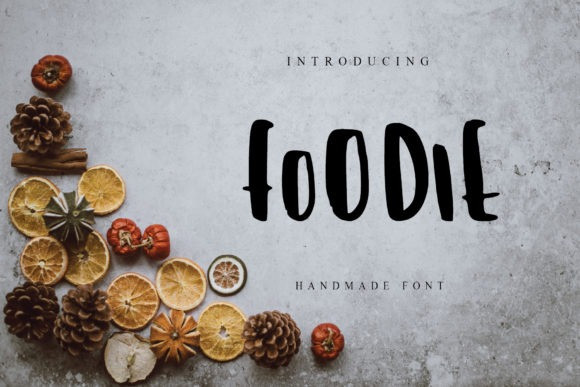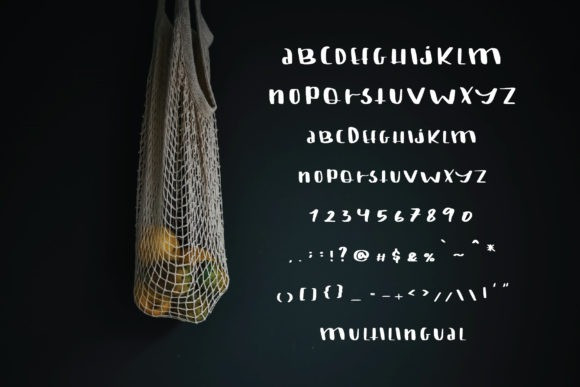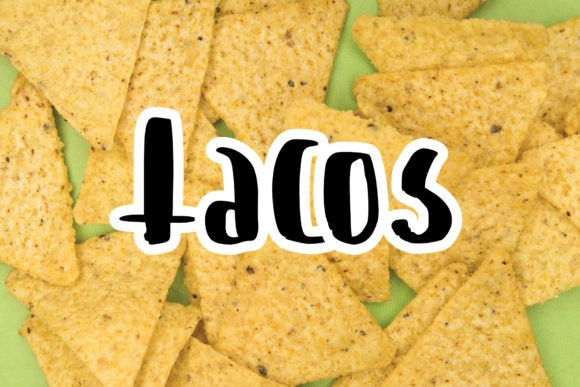
Foodie Display Font
Foodie is a cute and quirky display font. It will add an incredibly joyful touch to your designs. Add this beautiful display font to each of your creative ideas and notice how it makes them stand out!